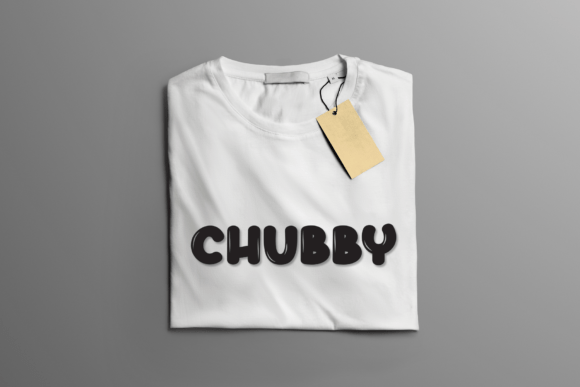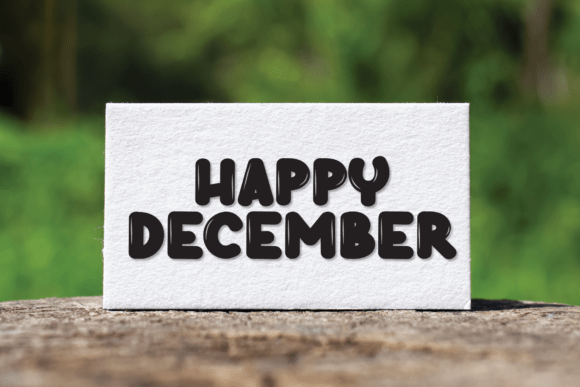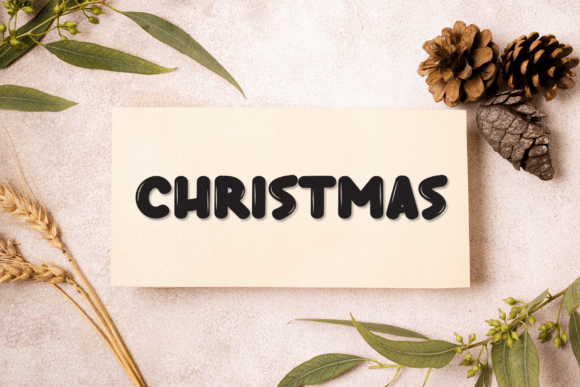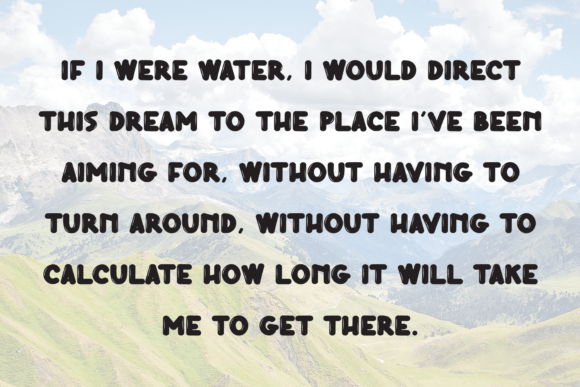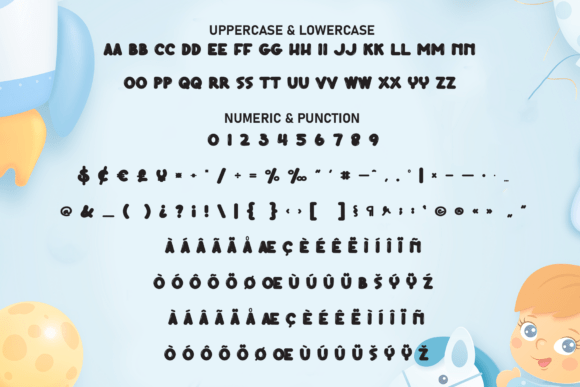
Baby Boys Font: Elevate Your Designs with a Touch of Whimsy
Are you a designer, crafter, or DIY enthusiast looking for a unique and creative way to add a personal touch to your projects? Look no further than our Baby Boys Font, a special creative product designed to give you an extraordinary experience. Our font is perfect for a variety of applications, from wall displays and wedding invitations to social media post logos, advertisements, product packaging, and more.
What Sets Our Font Apart
Our Baby Boys Font is a carefully crafted, high-quality font that boasts a range of features that make it perfect for designers and crafters. Here are just a few of the benefits you can expect:
- Latest Style Letters: Our font features the latest style letters that are both modern and elegant, perfect for adding a touch of sophistication to your designs.
- Versatile: Our font is perfect for a wide range of applications, including wall displays, wedding invitations, social media post logos, advertisements, product packaging, product designs, labels, photography, watermarks, invitations, stationery, and any project that requires tasteful handwriting.
- Encoded PUA Character: Our font features an encoded PUA character, which means you can access it completely without the need for additional design software.
Our Baby Boys Font is incredibly versatile, and can be used in a wide range of applications. Here are just a few ideas to get you started:
- Wall Displays: Create a stunning wall display with our font, perfect for adding a personal touch to your home or office.
- Wedding Invitations: Add a touch of elegance to your wedding invitations with our beautiful font.
- Social Media Post Logos: Create eye-catching social media post logos that will help you stand out from the crowd.
- Advertisements: Use our font to create stunning advertisements that will grab the attention of your target audience.
- Product Packaging: Add a personal touch to your product packaging with our font, perfect for creating a unique and memorable brand identity.
So why choose our Baby Boys Font over other fonts on the market? Here are just a few reasons:
- Unique and Creative: Our font is carefully crafted to provide a unique and creative look that will set you apart from the crowd.
- High-Quality: Our font is of the highest quality, ensuring that it will look great in any application.